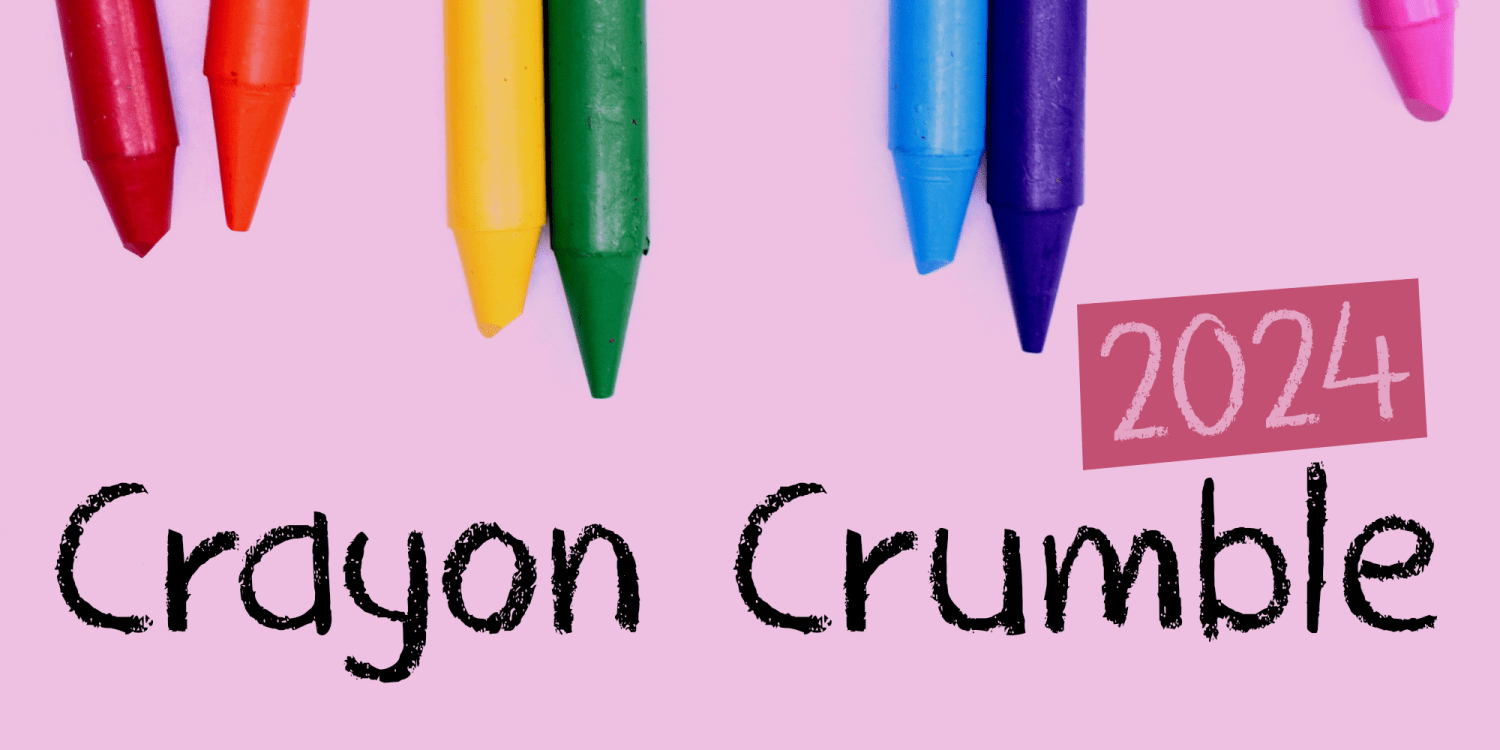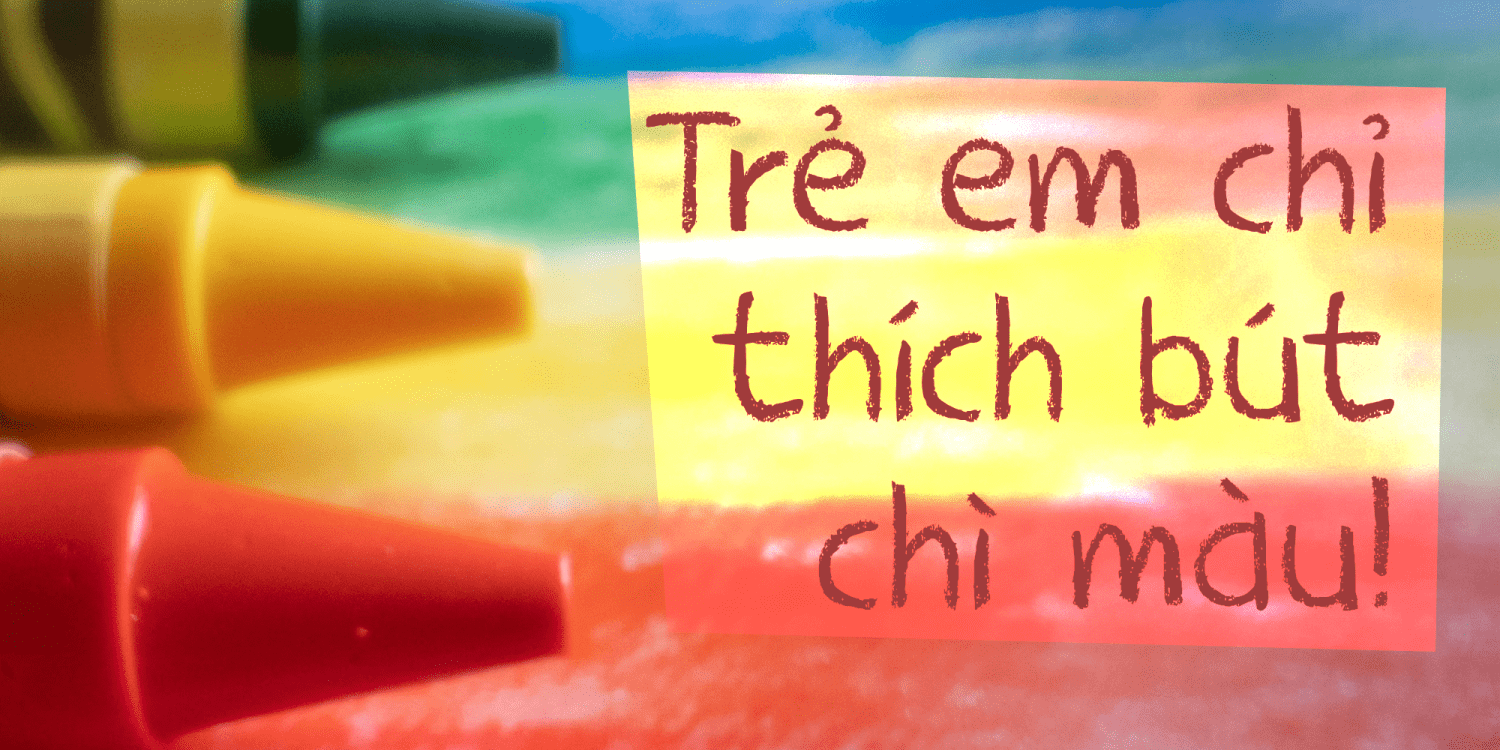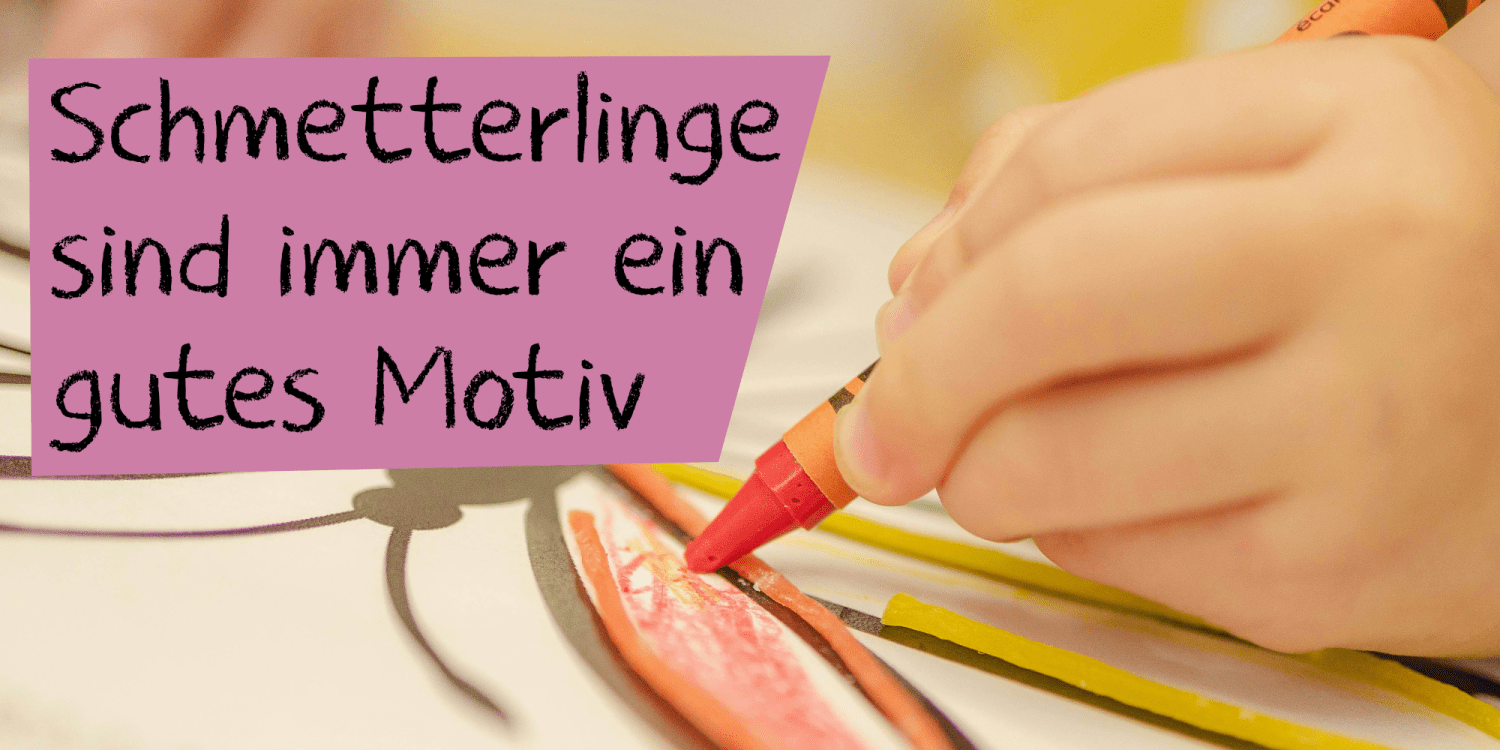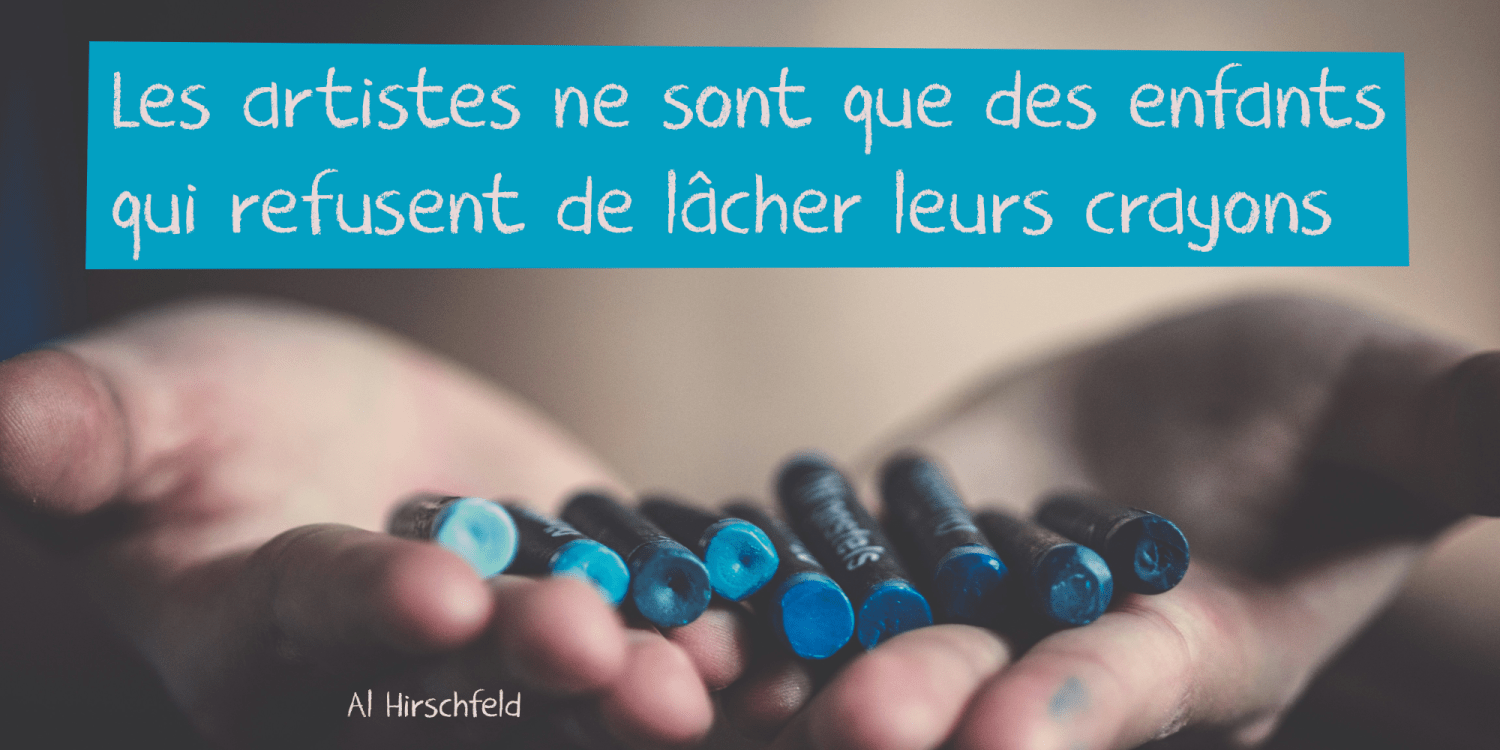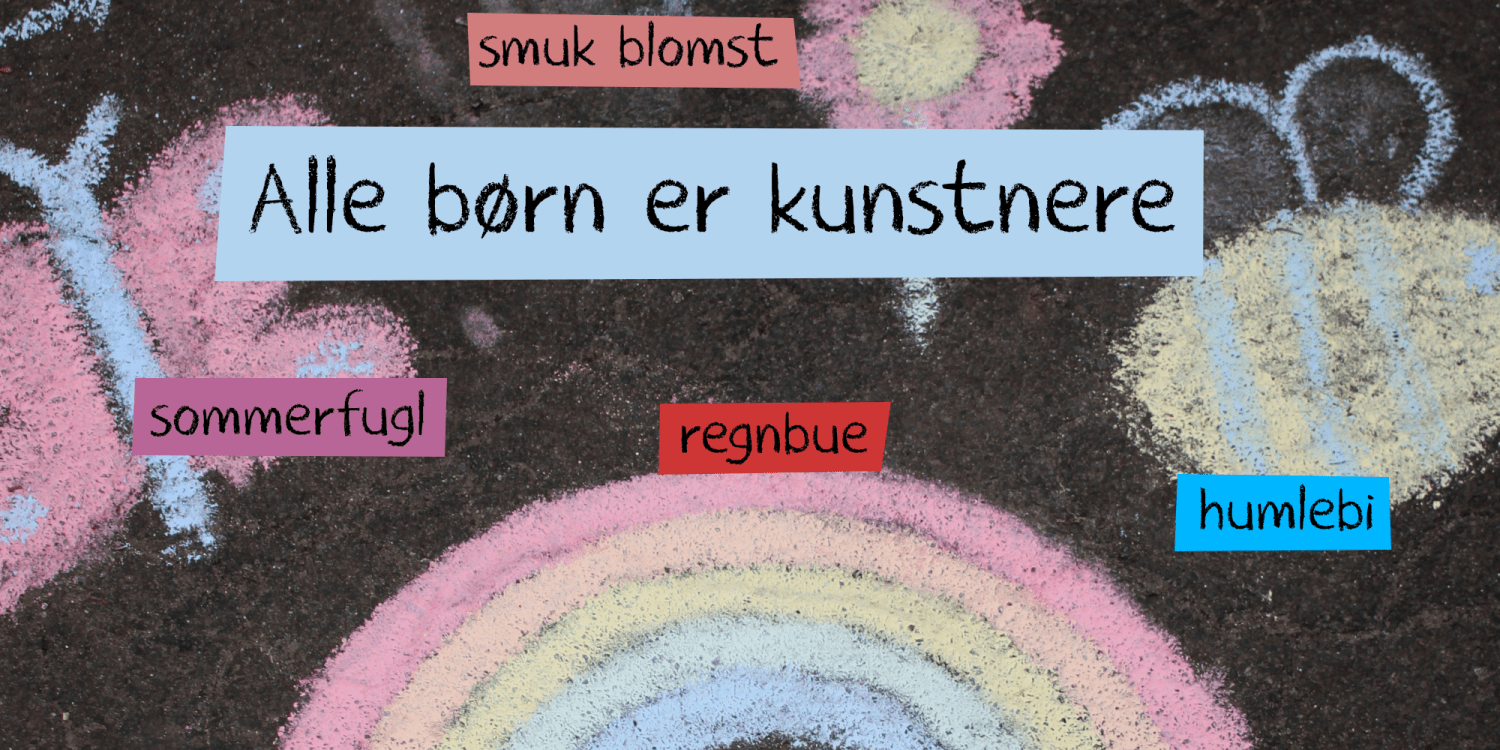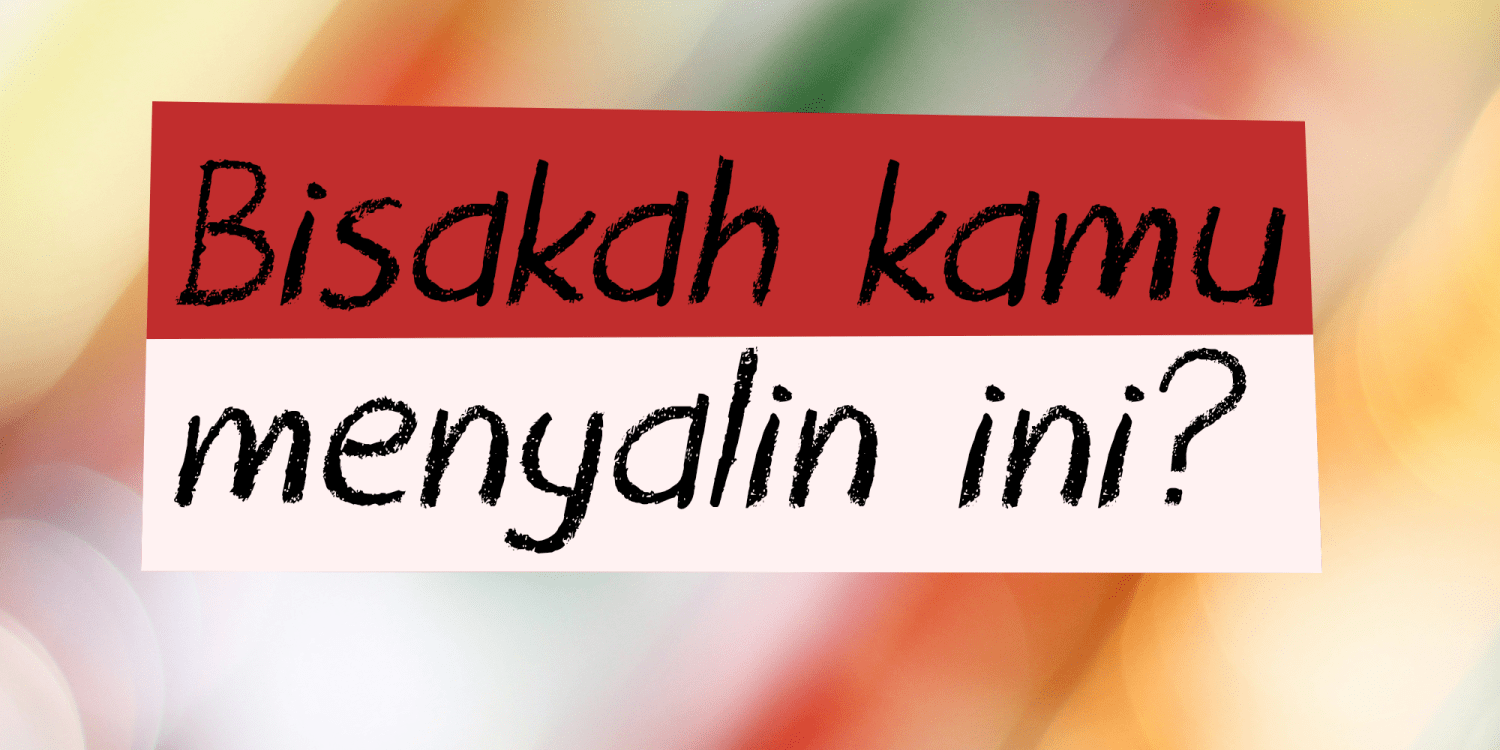
Crayon Crumble 2024
Back in 2011, I released a font called Crayon Crumble. As the name implies, I made it using a cheap and crumbling black crayon. It was an instant hit and ever since its release, it has been used for many, many, MANY books, games, toys, supermarket banners, album covers and packaging. Crayon Crumble was one of the first fonts I made - when I didn’t know too much about making fonts - so the original is a bit rough and has rudimentary language support.
This 2024 version is an update - and yes, it now comes with language support and new glyphs, but I have also tweaked some of the rougher glyphs. In other words, it may look like the old version, but it’s a new font altogether.